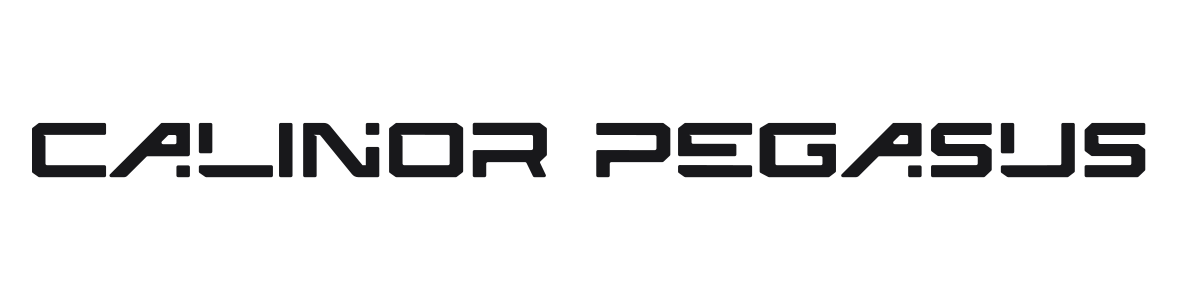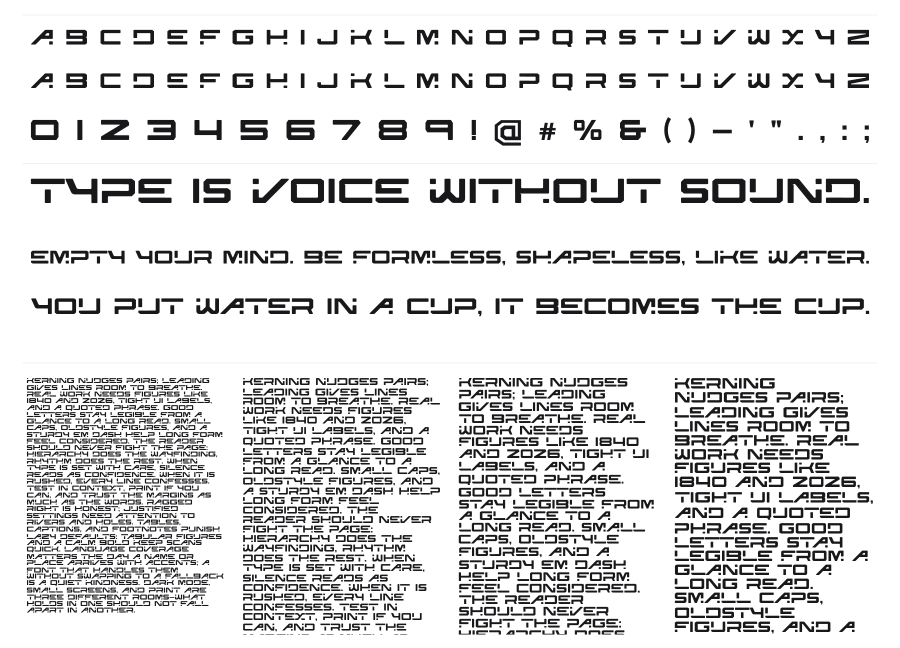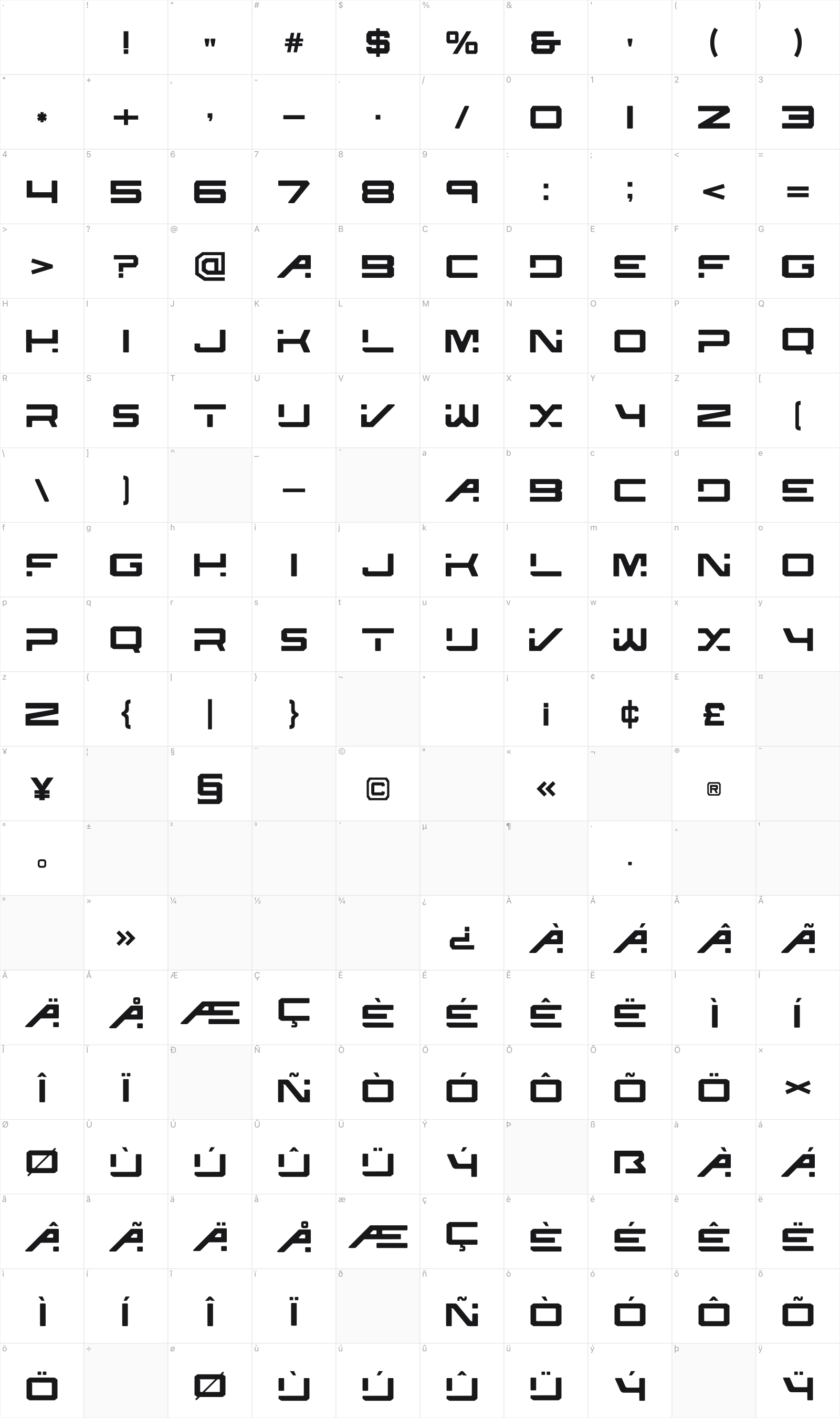
Calinor Pegasus
Calinor Pegasus is a futuristic geometric sans built around angular cuts, segmented strokes, and a heavy machine-like presence. The letters feel like they belong on a spacecraft console or a military briefing slide, with notched terminals and flat geometry that reinforce the sci-fi aesthetic. It commands attention at large sizes and works naturally in gaming, film, and high-tech branding contexts.